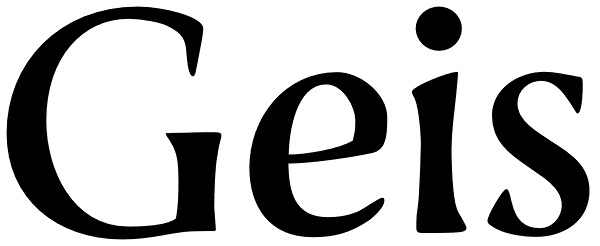
Geis
In 1978 I went to work at Mergenthaler as a letter drawer. Being an inquisitive sort I decided that I should take a stab at this type design 'stuff'. I drew 25 or 30 glyphs before the work found its way to a high shelf in a dark corner of my...